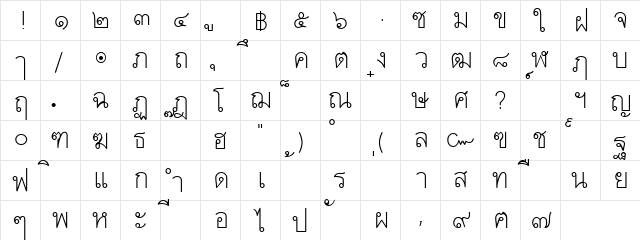
Thai Keymapped YK Regular
Design Context for Thai Keymapped YK Typeface
Thai Keymapped YK is a composed and adaptable typeface that performs quietly and consistently across a wide range of design contexts.